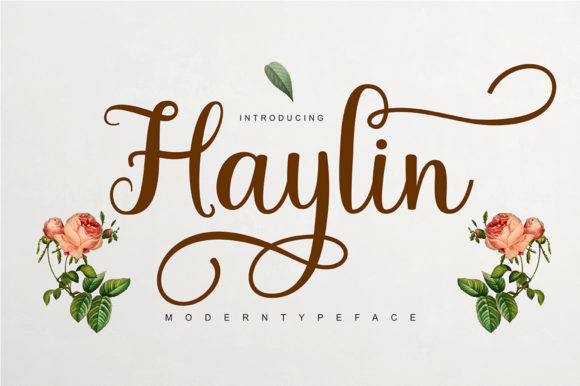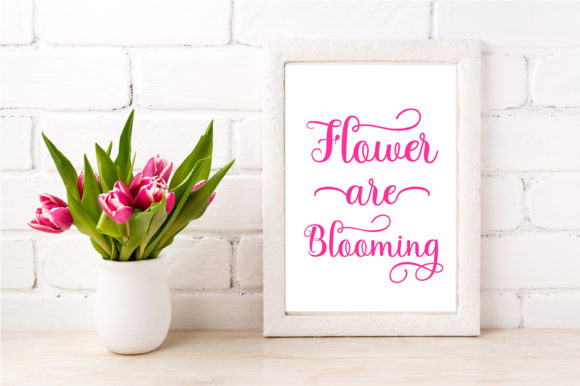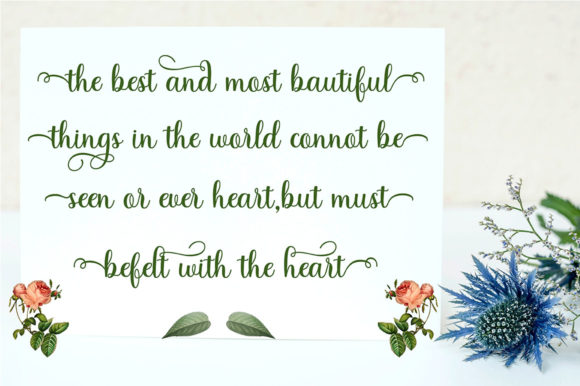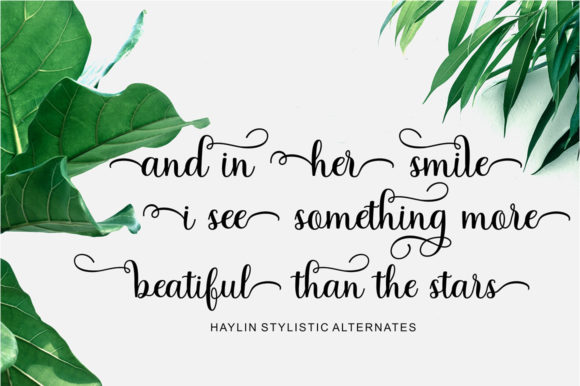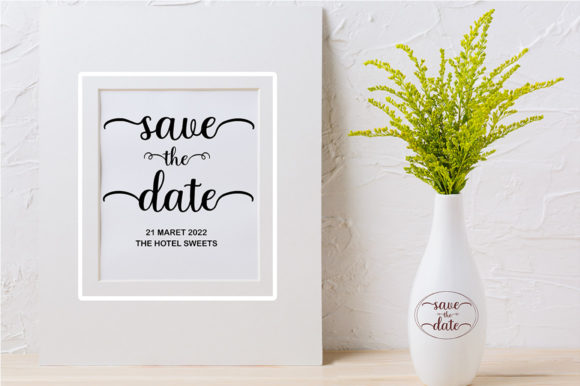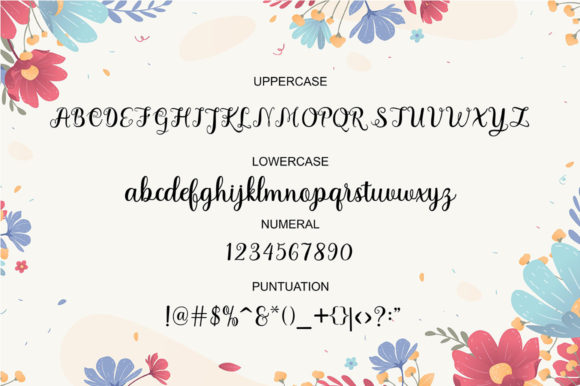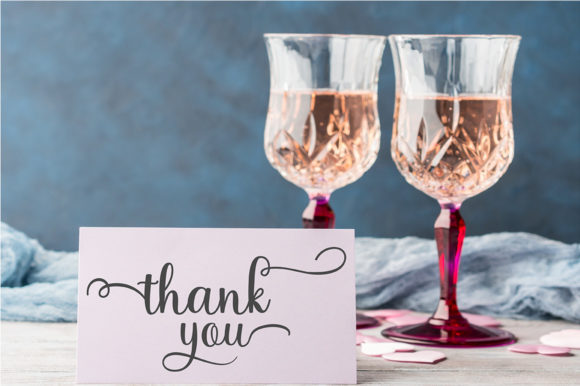
Haylin Script Font
About Haylin Script Font
Haylin Script is a lovely and delicate script font that brings an air of elegance and class to your designs. With its beautiful and refreshing look, this font is perfect for adding a touch of sophistication and beauty to various design projects. Whether you’re working on invitations, logos, branding, or any other creative endeavor, Haylin Script font will give your designs a stunning and refined look.
The delicate nature of Haylin Script font gives it a soft and graceful appearance. Its beautifully crafted letterforms and flowing curves create a visually pleasing aesthetic that exudes elegance and charm. Whether used for wedding invitations, branding, stationery, or any other design project, Haylin Script font adds a sense of refinement and beauty.
Haylin Script font is particularly crafted to cater to those who desire a beautiful and refreshing look for their designs. Its unique and intricate style sets it apart, allowing you to create designs that stand out with a touch of elegance and class. The PUA encoding of Haylin Script font makes it easy to access all the glyphs and swashes, providing you with even more creative possibilities.
The versatility of Haylin Script font makes it suitable for a wide range of design applications. From luxury branding to feminine and romantic designs, Haylin Script font brings an air of elegance and sophistication. Its lovely and delicate script adds a touch of charm to your projects, making them visually captivating and memorable.
Incorporating Haylin Script font into your designs allows you to create a harmonious and refreshing visual experience. Its beautiful and refined letterforms elevate the overall aesthetic and bring a sense of elegance to your creations.
In summary, Haylin Script is a lovely and delicate script font that exudes elegance and class. Its beautifully crafted letterforms and flowing curves create a visually pleasing aesthetic. Embrace the beautiful and refreshing look of Haylin Script font and confidently add it to your projects to add a touch of sophistication and beauty.